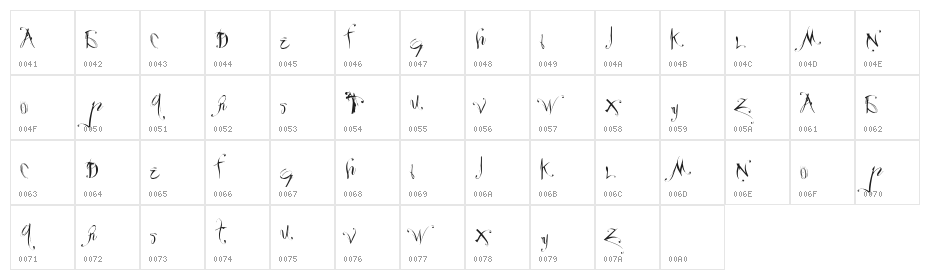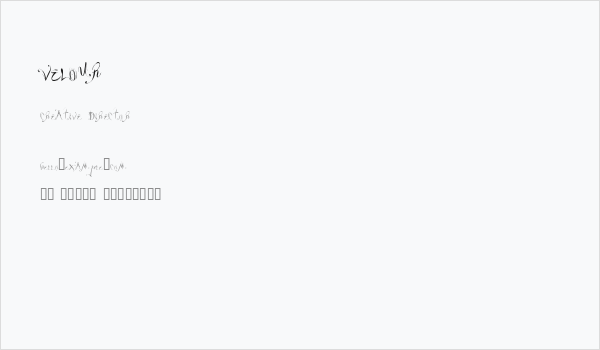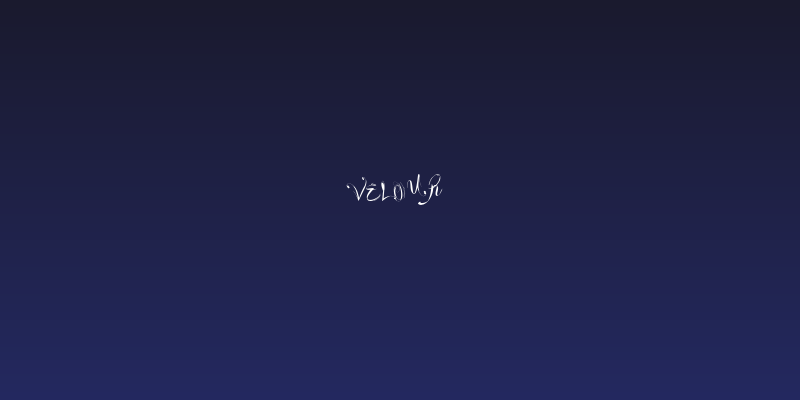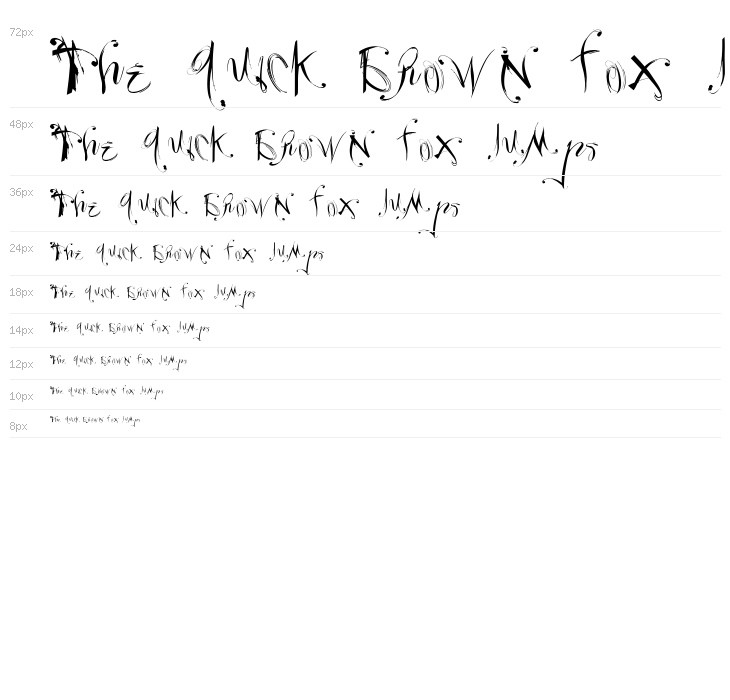
Velour Font
Velour Description
This font exhibits a highly decorative and artistic style, characterized by its flowing, cursive script with elaborate swirls and flourishes. The uppercase letters are particularly ornate, with exaggerated loops and extensions that give the font a dynamic and whimsical appearance. The lowercase letters maintain a consistent style, though they are slightly more restrained in their embellishments. The font's overall aesthetic is reminiscent of calligraphy, with a modern twist that incorporates both thick and thin strokes, creating a sense of movement and elegance. The absence of numerals and special characters suggests a focus on artistic expression rather than practicality.
Use CaseLogos, Invitations, Artistic projects
Proposed ProjectsIdeal for wedding invitations, artistic posters, branding for luxury products, or any project requiring a touch of elegance and sophistication.